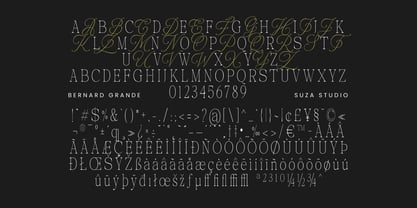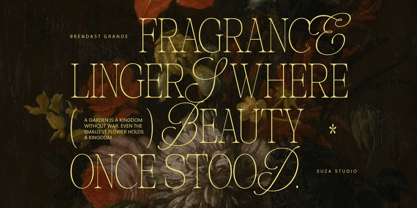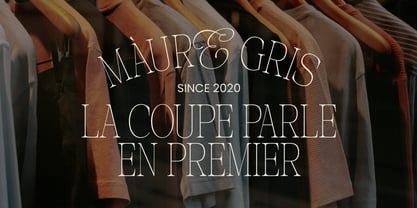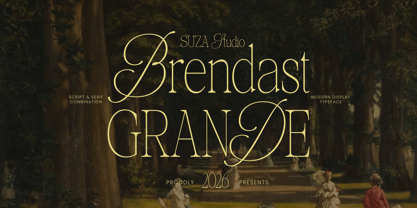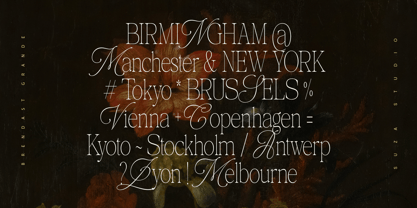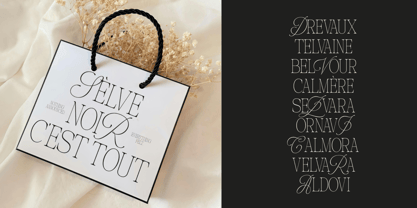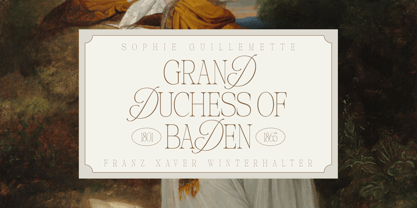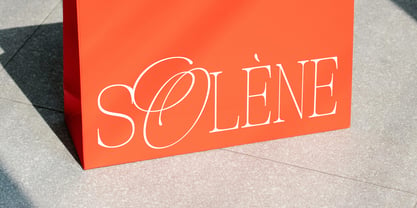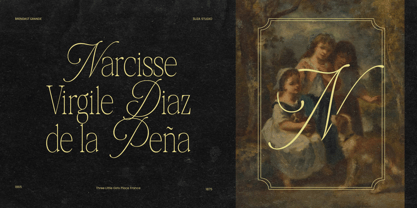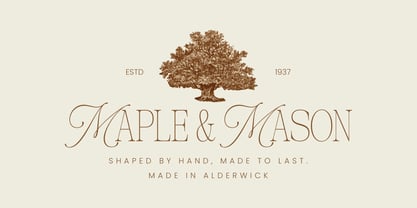
Brendast Grande
The Brendast Grande Font Family was designed by Zikrillah and published by Suza Studio. Brendast Grande contains 2 styles and family package options.
Brendast Grande is a captivating blend of calligraphy and serif, exuding a timeless atmosphere and nostalgic charm that enhances every design. This unique blend brings a touch of sophistication to any project, making it an ideal choice for branding, editorial layouts, and social media visuals. With its versatile aesthetic, Brendast Grande enriches your design toolkit, offering endless creative possibilities for refined and stunning results. PUA-Encoded Characters – Fully accessible without additional design software. The fonts support ligatures, alternates, and are multilingual.